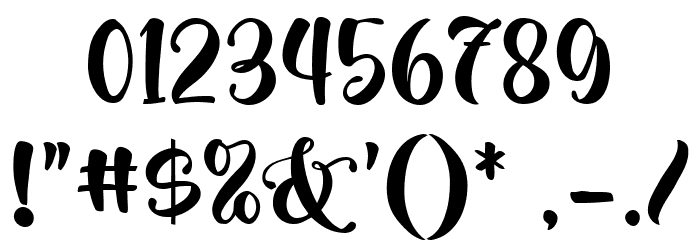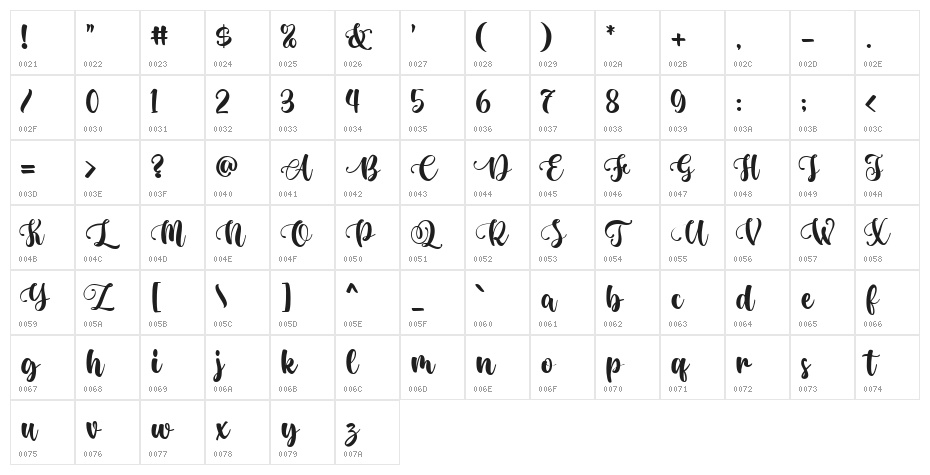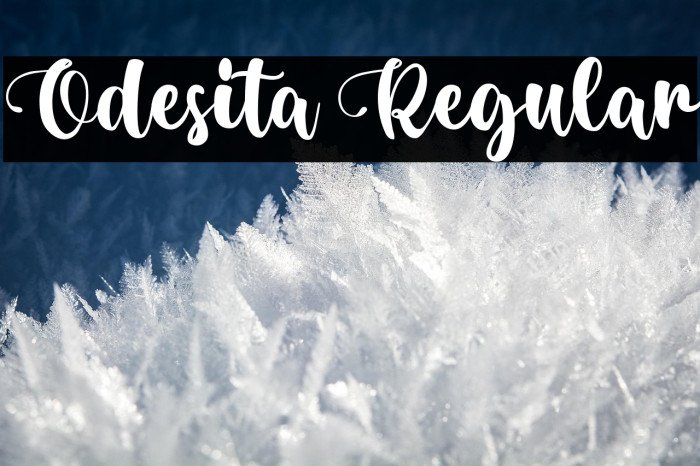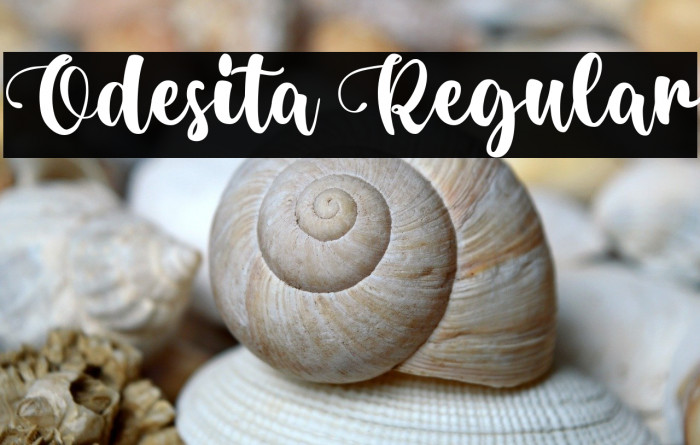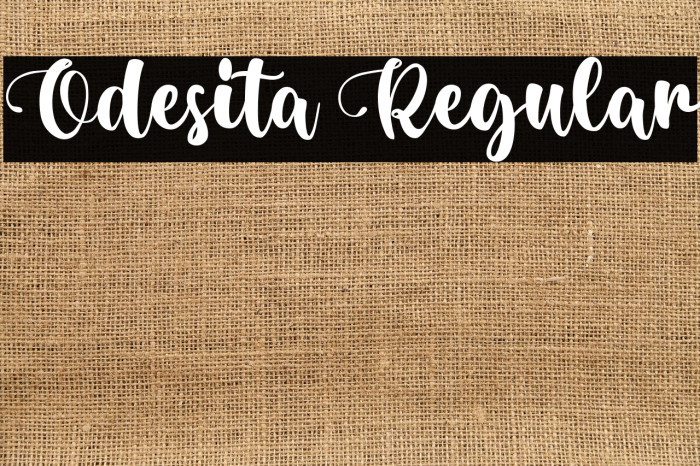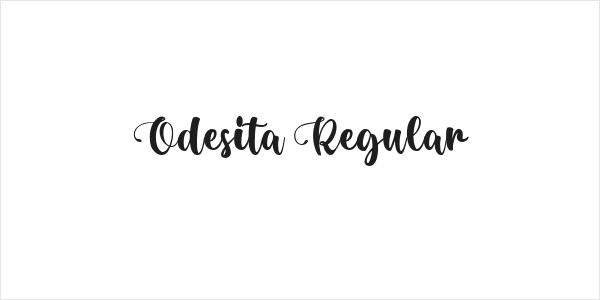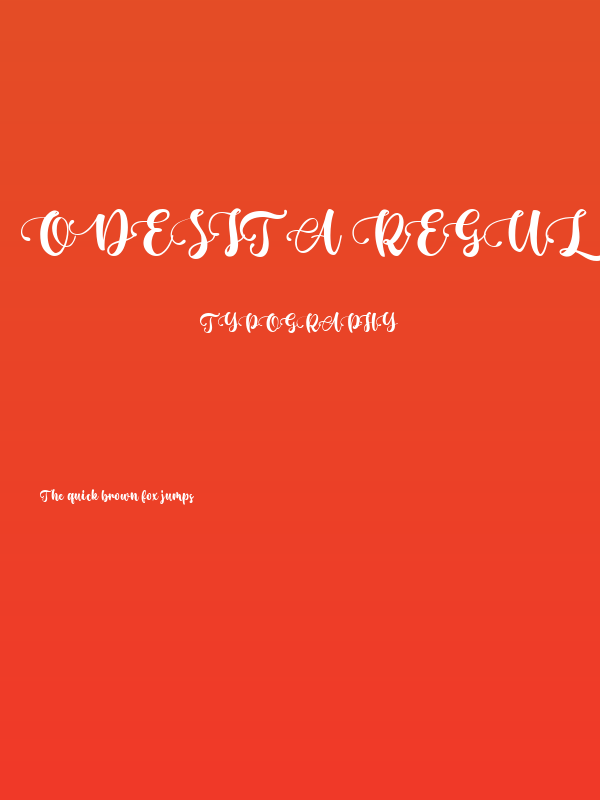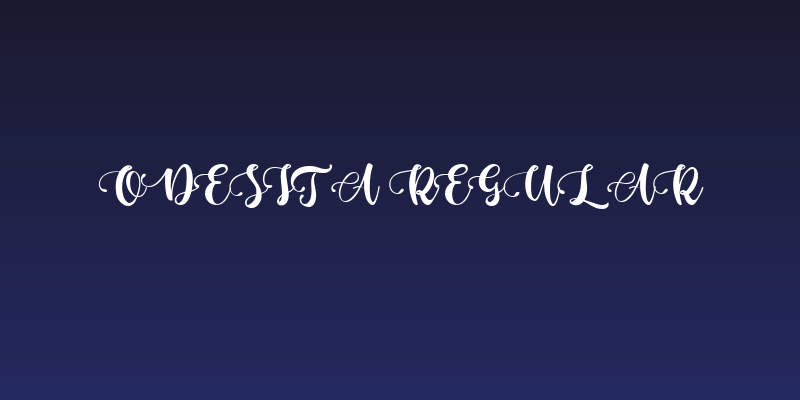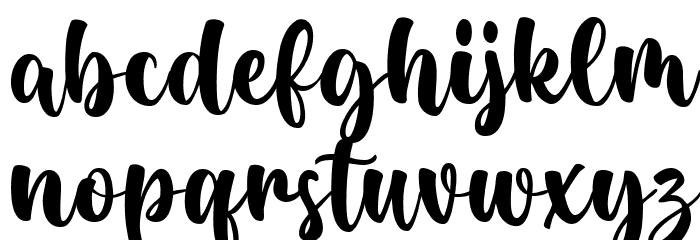
Odesita Regular Font
Odesita Regular Description
This font features a playful and elegant script style with a flowing, cursive design. The uppercase letters are characterized by their intricate loops and swirls, giving them a decorative flair. The lowercase letters maintain a consistent flow, with smooth curves and rounded edges that enhance readability while retaining a stylish appearance. The numerals are bold and clear, matching the overall aesthetic of the font. Special characters are creatively integrated, maintaining the script's whimsical nature. This font is perfect for adding a personal touch to any project, combining elegance with a modern twist.